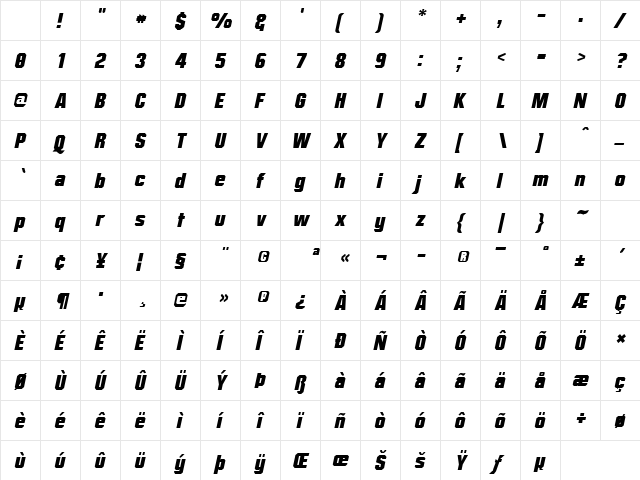
Complete Mister Belvedere Oblique Regular glyph index. Displaying only characters natively supported by Mister Belvedere Oblique Regular font.
Mister Belvedere Oblique is a composed and adaptable typeface that performs quietly and consistently across a wide range of design contexts. The slanted form adds forward momentum and visual energy.
Pro Tip: Use Mister Belvedere Oblique for emphasis, pull quotes, and subheadings where its slanted energy can add rhythm to the layout.